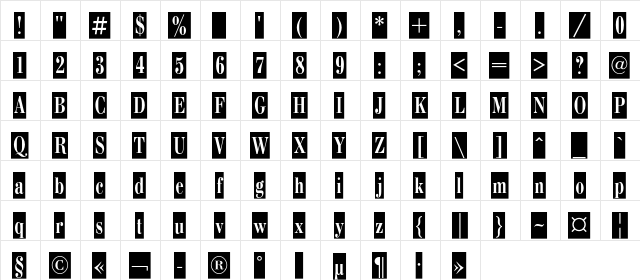
BodoniCondCameoC Regular Font Preview
BodoniCondCameoC Regular
Design Context for BodoniCondCameoC Typeface
BodoniCondCameoC is a composed and adaptable typeface that performs quietly and consistently across a wide range of design contexts. Its narrow stance lets it pack a punch even in space-constrained designs.